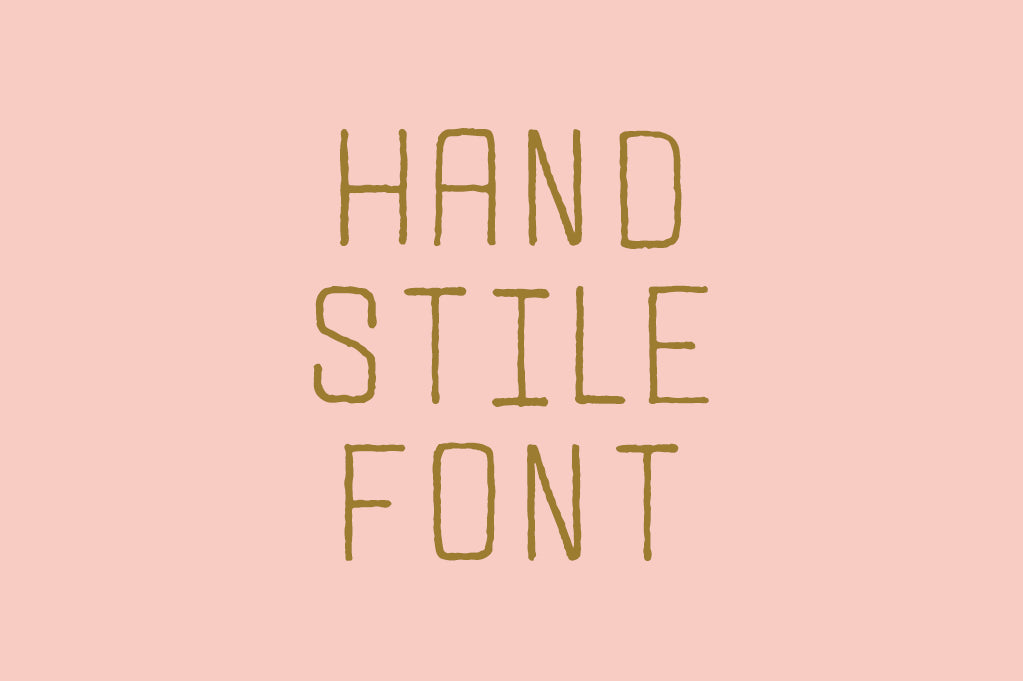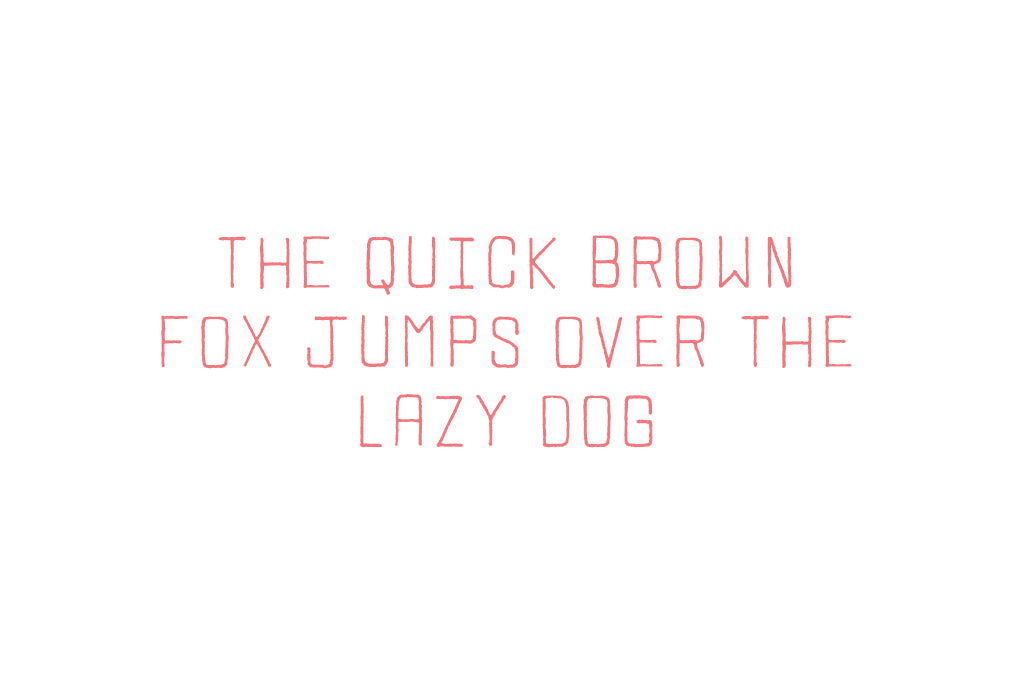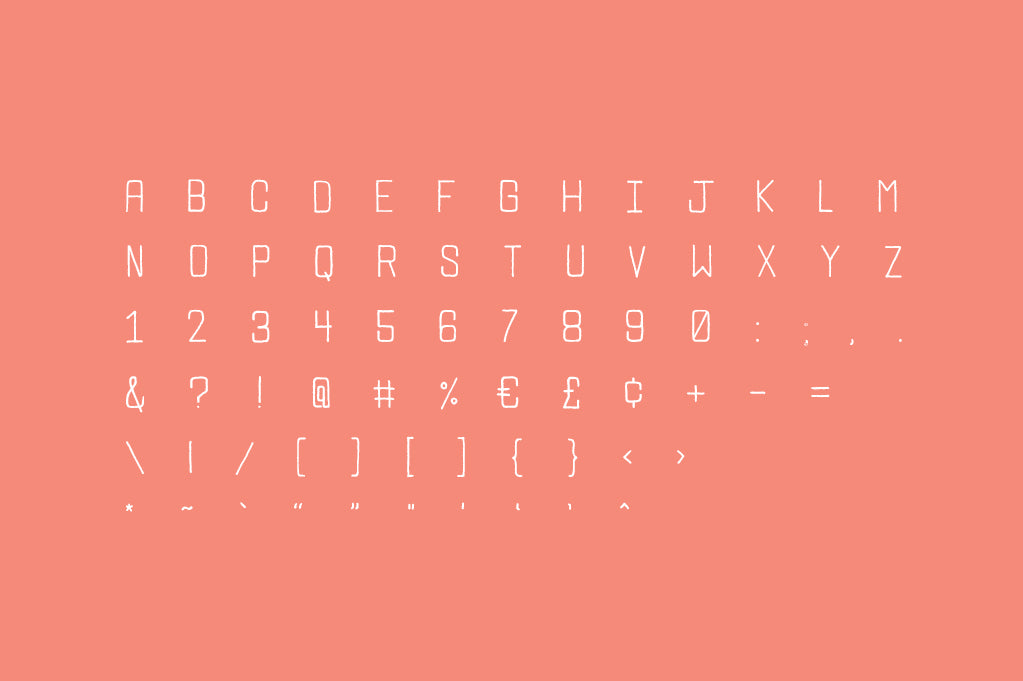
Hand Stile Font
Presenting Hand Stile, a thin hand lettered sans-serif font.
With its thin weight, this sans-serif font combines a simple modern aesthetic with a timeless hand lettered approach.
Every single character on a U.S. keyboard is included (plus the British Pound symbol, the Euro symbol, and the U.S. cent symbol.) 72 characters total included.